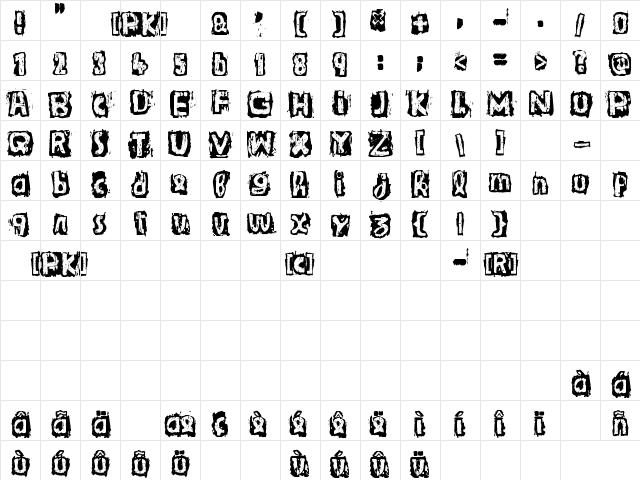
Complete Guignol's Band Regular glyph index. Displaying only characters natively supported by Guignol's Band Regular font.
Guignol's Band is a composed and adaptable typeface that performs quietly and consistently across a wide range of design contexts.